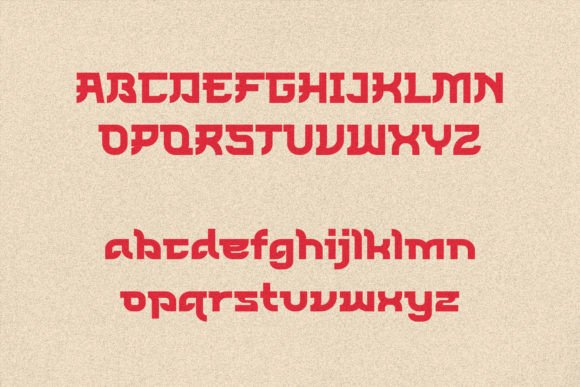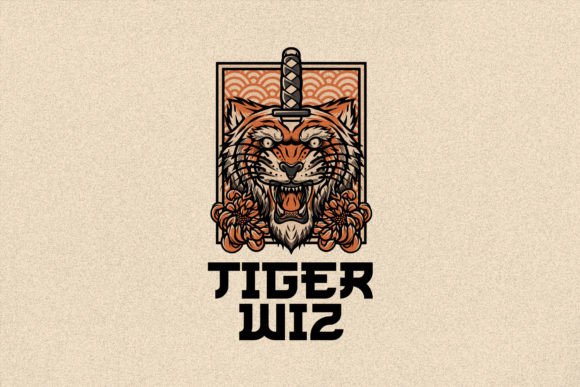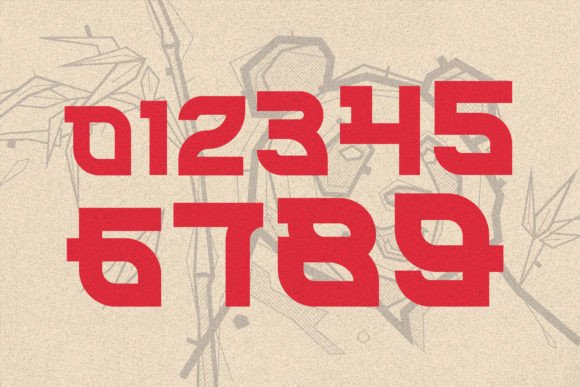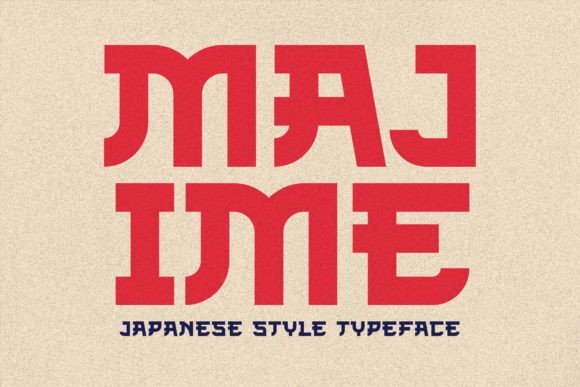
Introduction to Majime Font
Majime is a Japanese inspired display typeface.
This beautiful lower and uppercase style font is suitable for esports, posters, movie titles, branding, restaurants, YouTube covers or thumbnails, magazines, social media, and more Majime is modern, professional, and quite timeless, perfect for your current and future projects.
Key Features of Majime Font